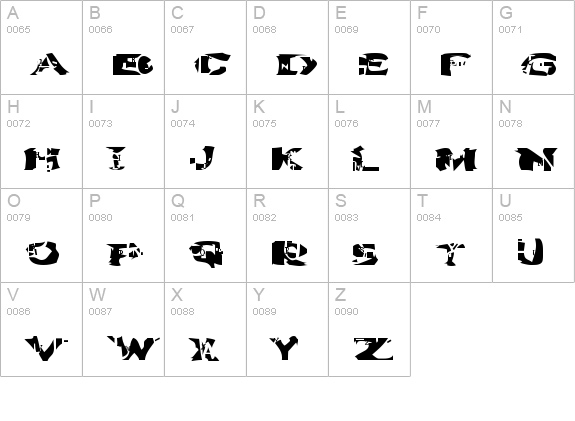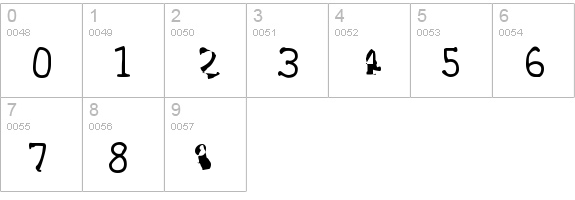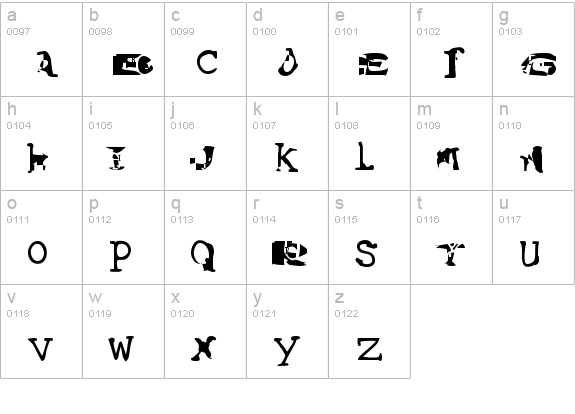
Water Torture Font Details
Water Torture font is a captivating and versatile typeface that effortlessly combines elegance and edginess. With its fluid and dynamic letterforms, this font exudes a sense of movement and intrigue, making it perfect for creating eye-catching designs that demand attention. The unique design of Water Torture font is inspired by the mesmerizing patterns created by water droplets falling into a pool. Each letter is meticulously crafted to resemble the graceful ripples and splashes created by this natural phenomenon. This font offers a refreshing and modern take on typography, allowing you to add a touch of sophistication to any project. Water Torture font is not only visually stunning, but it also offers exceptional readability, making it an ideal choice for a wide range of applications. Whether you are designing logos, headlines, posters, or invitations, this font will elevate your designs with its distinct personality and artistic flair. One of the best things about Water Torture font is that it is completely free to download. Yes, you heard it right - this high-quality font is freely available to download at FontsMarket.com. You can unleash your creativity and experiment with this font without worrying about any additional costs. It's a fantastic opportunity to add a unique and captivating touch to your designs without breaking the bank. So why wait? Download Water Torture font today and let your imagination run wild. Whether you are a professional designer or a passionate hobbyist, this font will undoubtedly become an invaluable tool in your creative arsenal. Transform your projects from ordinary to extraordinary with the captivating beauty of Water Torture font.